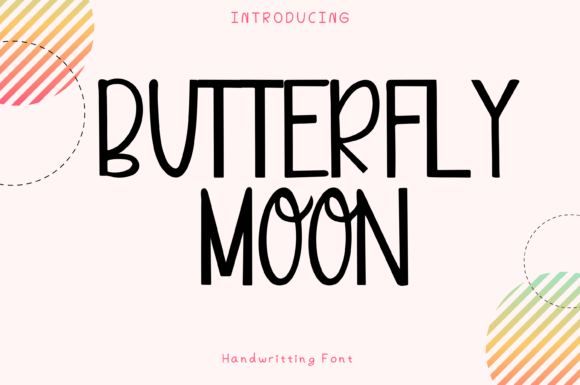
Introduction to Butterfly Moon Font
Butterfly Moon is a whimsical and clean handwritten font.
It can easily be matched to a large set of projects, so add it to your creative ideas, and notice how it makes them stand out .
Key Features of Butterfly Moon Font
Why Choose Butterfly Moon Font?
Butterfly Moon Font offers exceptional quality and versatility, making it a valuable addition to your design toolkit. Whether you’re creating for personal projects or commercial use, Butterfly Moon Font delivers professional results.